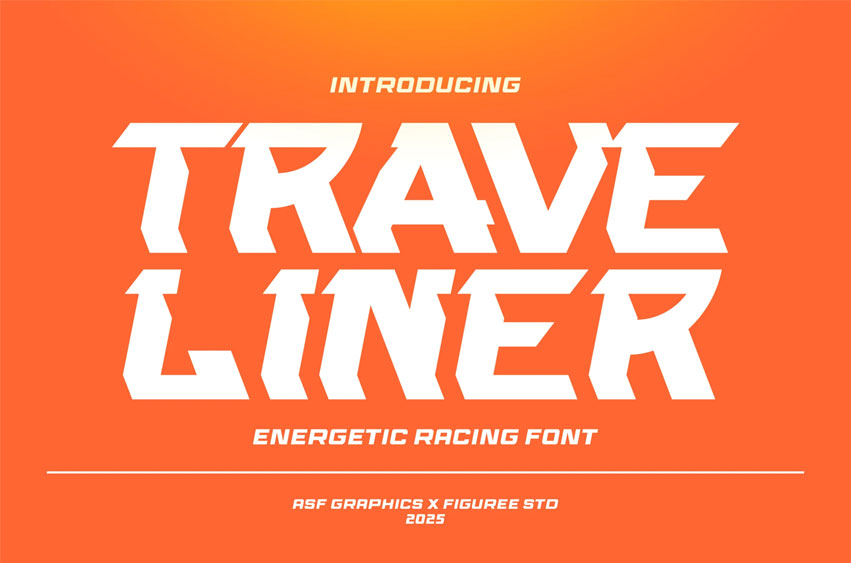
Trave Liner Font Start your engines and ignite your design with Trave Liner – the ultimate energetic racing font built for high-speed visual impact!
Crafted for adrenaline lovers and speed-driven themes, Trave Liner combines sharp angles with bold motion-inspired cuts that scream power and velocity. Whether you’re designing for automotive posters, racing games, motorsport branding, or energy drink packaging, this font delivers raw force in every character.
Trave Liner features uppercase and lowercase characters, giving you full flexibility in titling and display work. The font comes in two dynamic styles: Regular and Italic, perfect for emphasizing motion and speed. With multilingual support, your bold message can reach audiences across the globe.
- Uppercase & Lowercase
- Regular & Italic Styles
- Strong geometric racing vibe
- Great legibility at large sizes
- Multilingual support
- Perfect for speed-themed visuals
Why Designers Love It: Designers love Trave Liner because it captures movement and intensity in a typeface. Its cutting-edge structure is easy to pair with modern visuals, making it a go-to font for racing ads, urban campaigns, energy brands, sports covers, and dynamic YouTube thumbnails. The italic version adds even more momentum to your layouts.
Fuel your typography with speed, power, and precision. Trave Liner isn’t just a font — it’s a fast-lane ticket to captivating, high-octane design. Whether you’re building a bold brand or crafting artwork that demands attention, Trave Liner will first take your vision across the finish line.